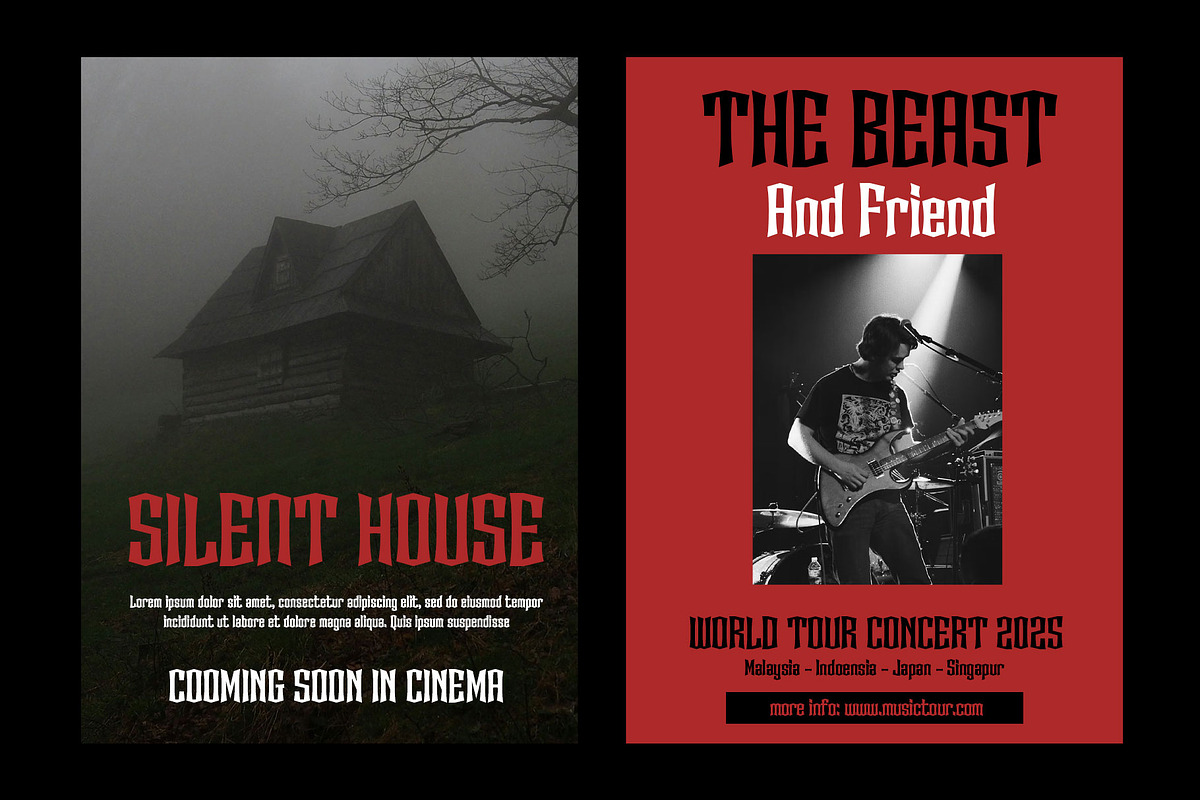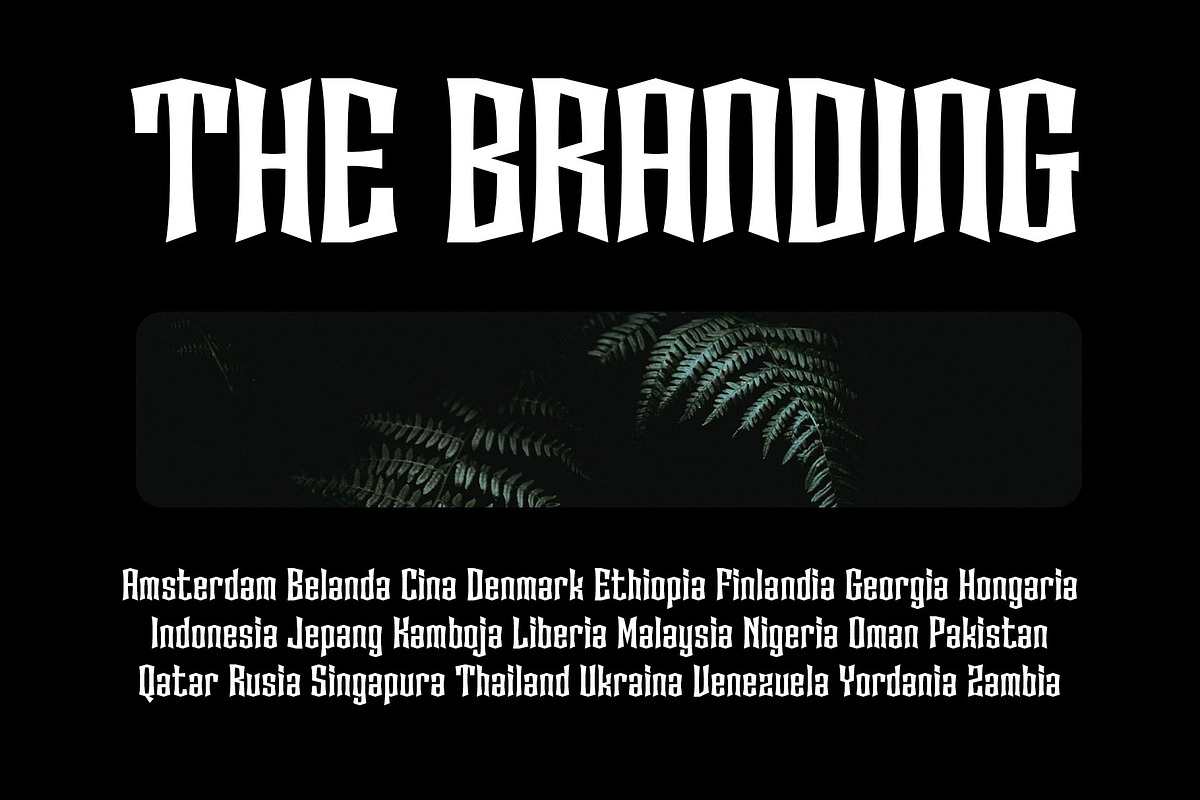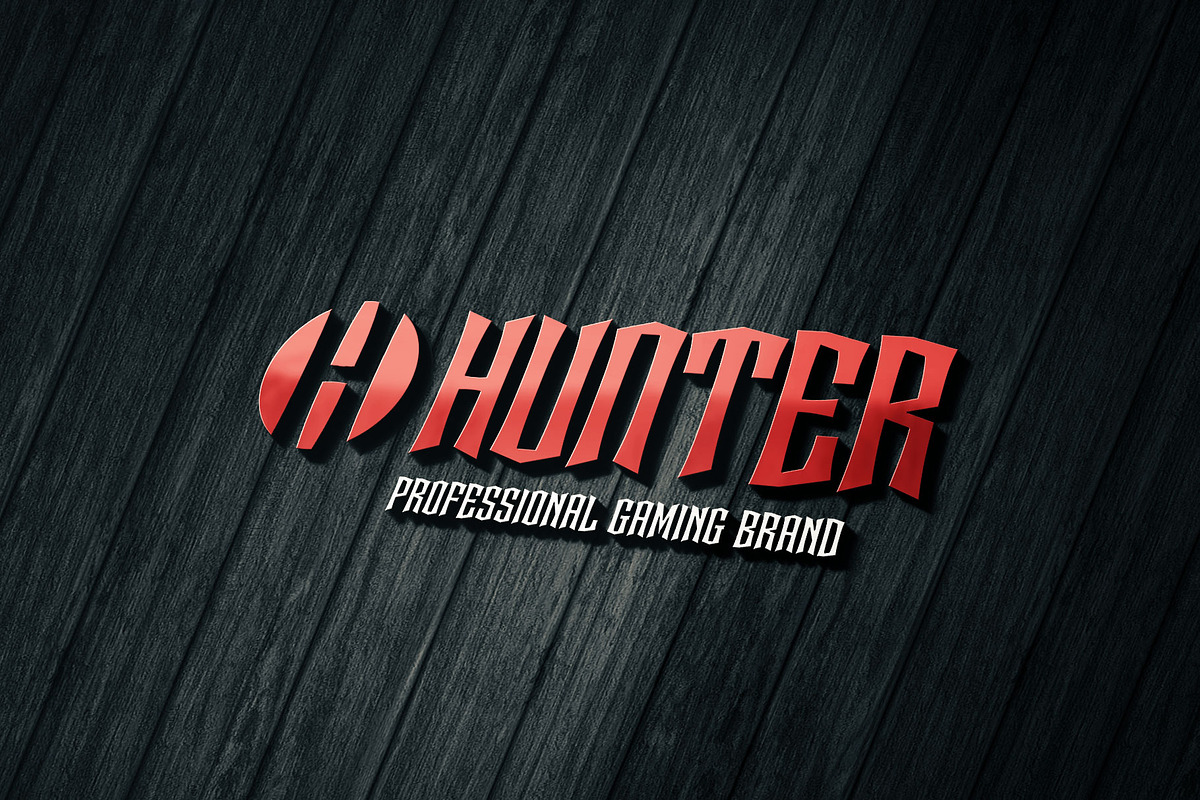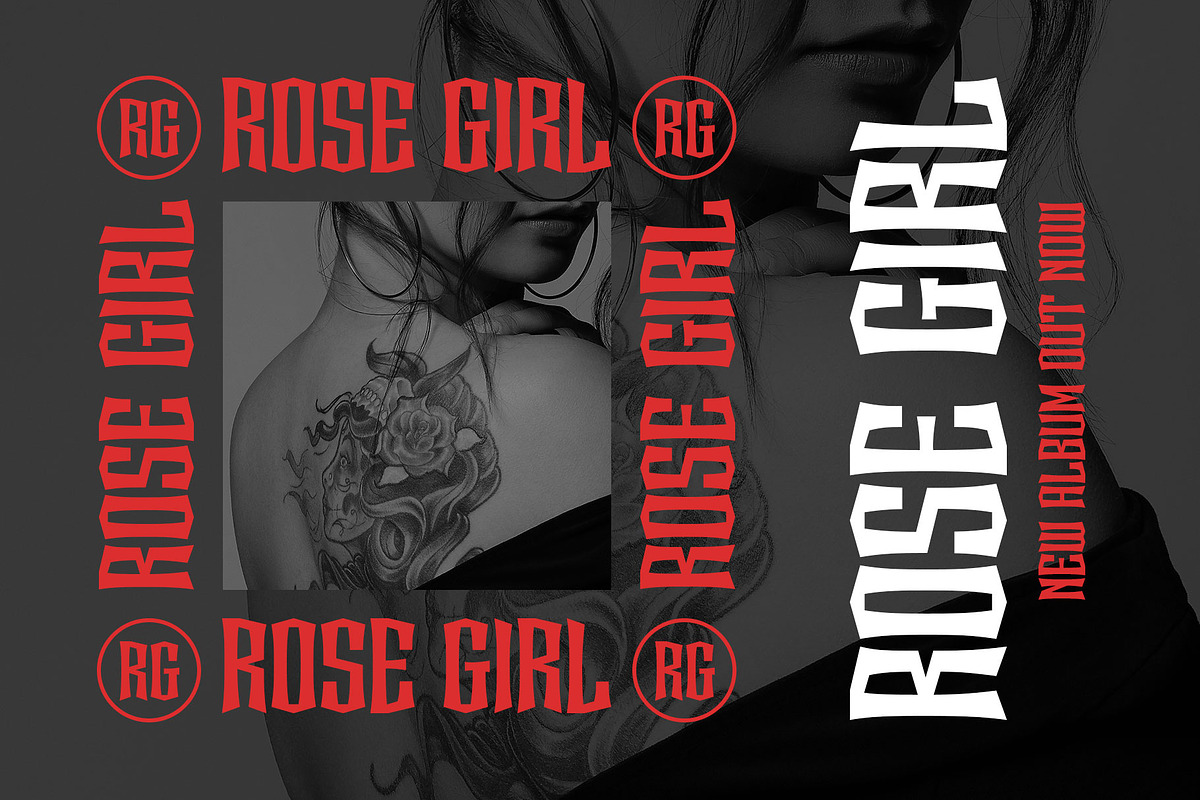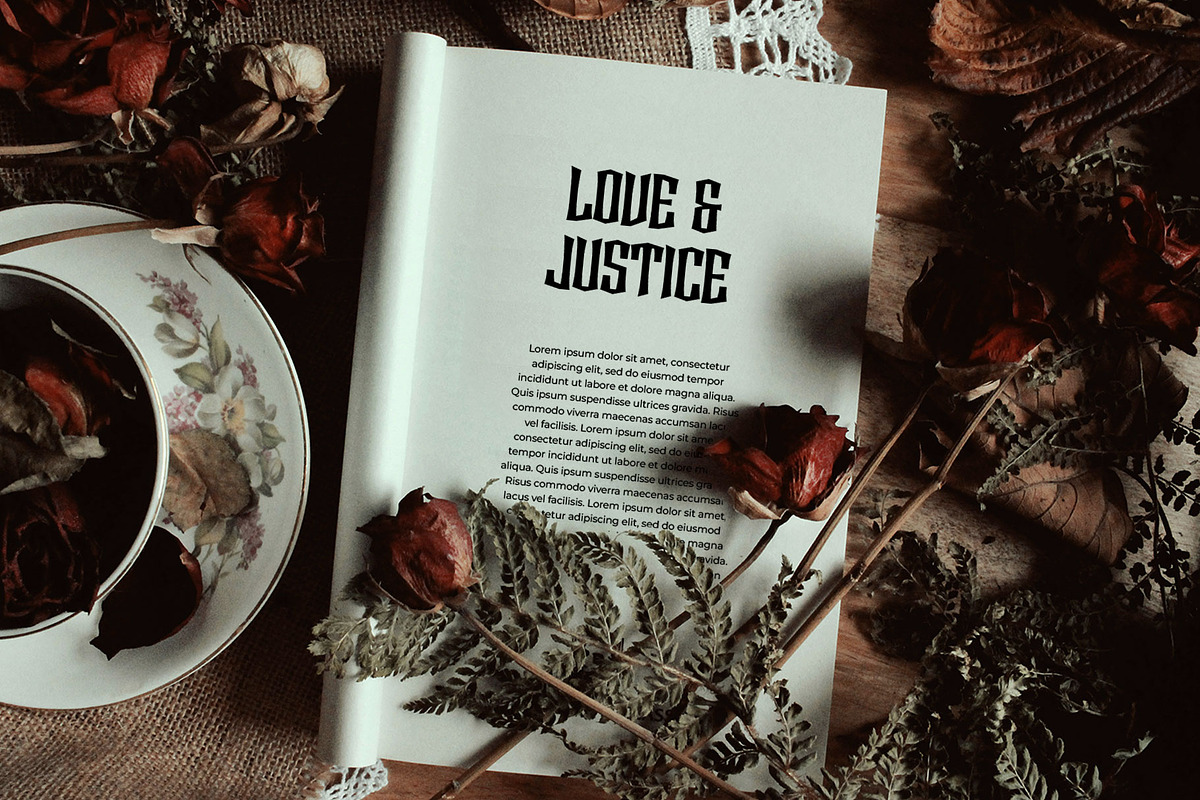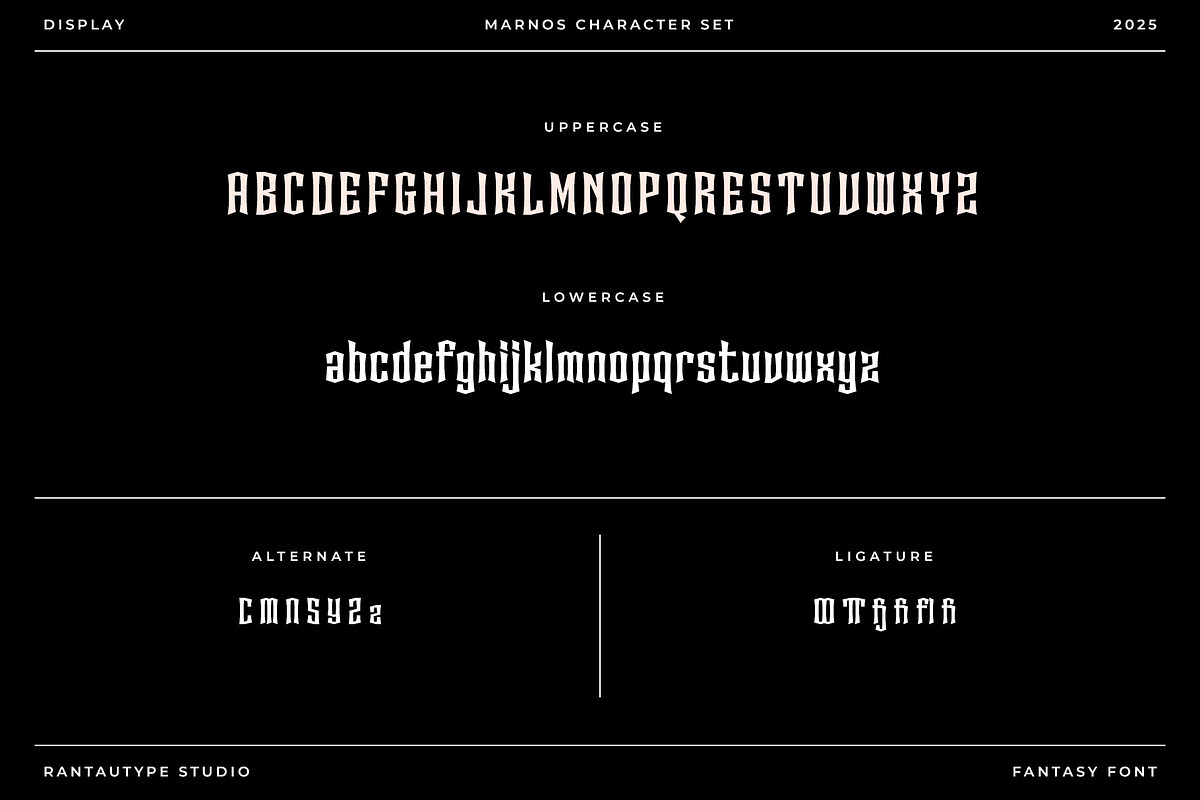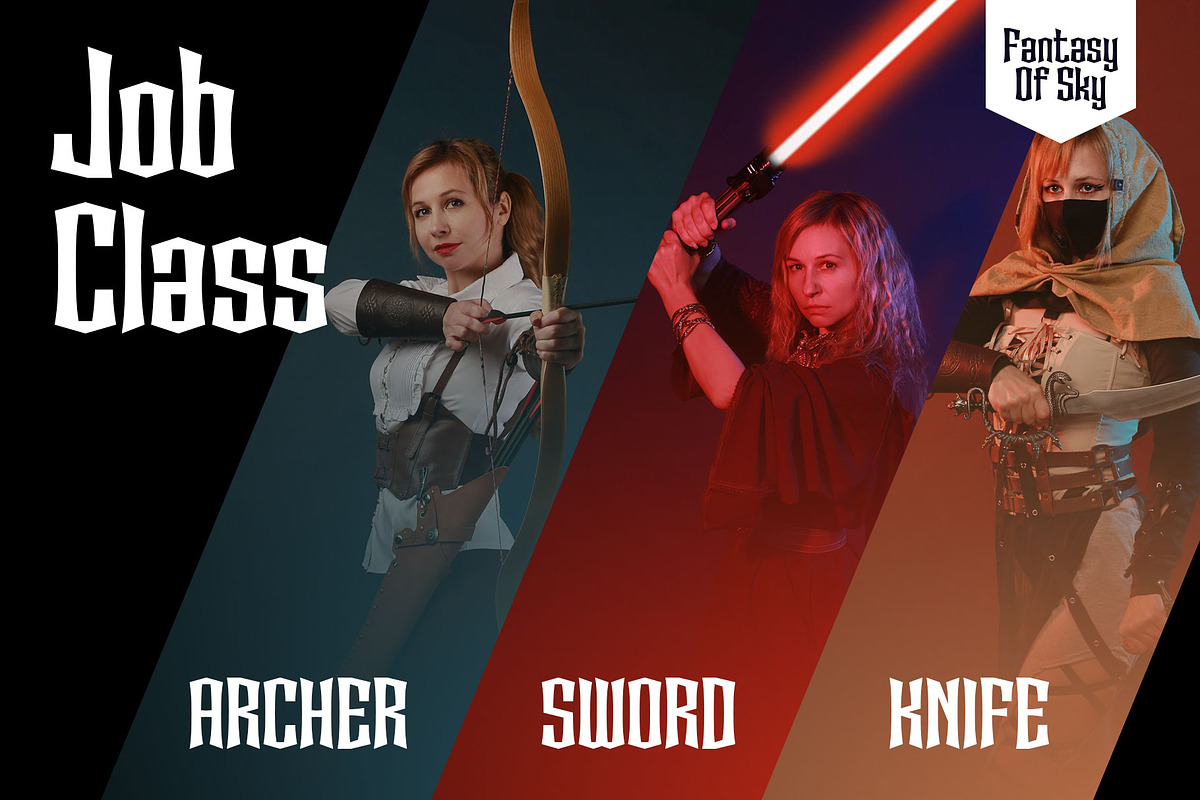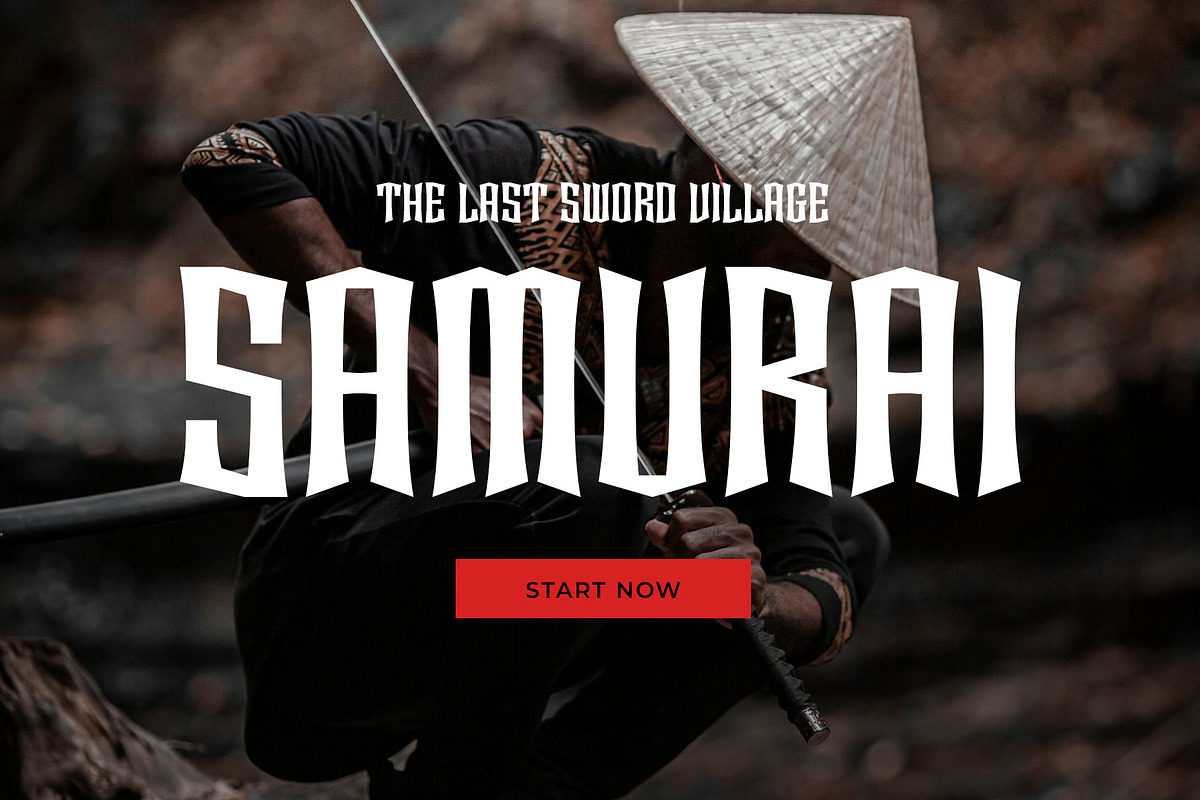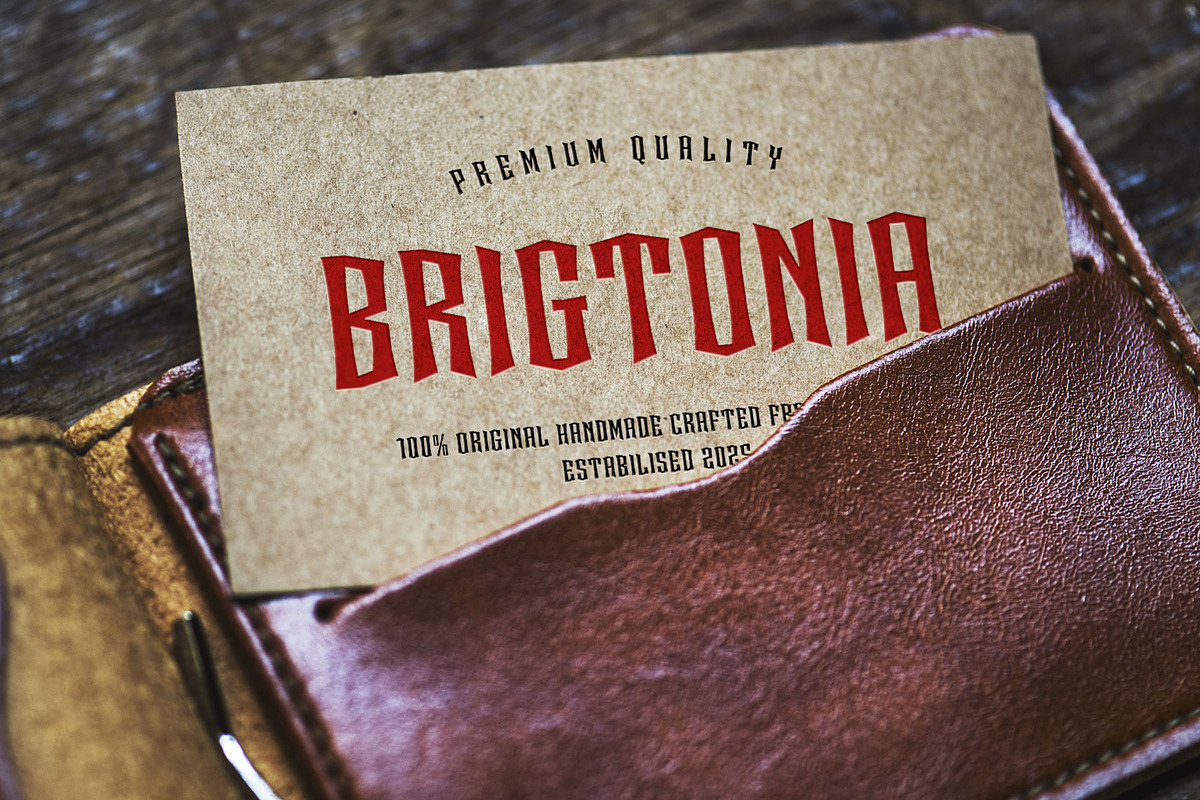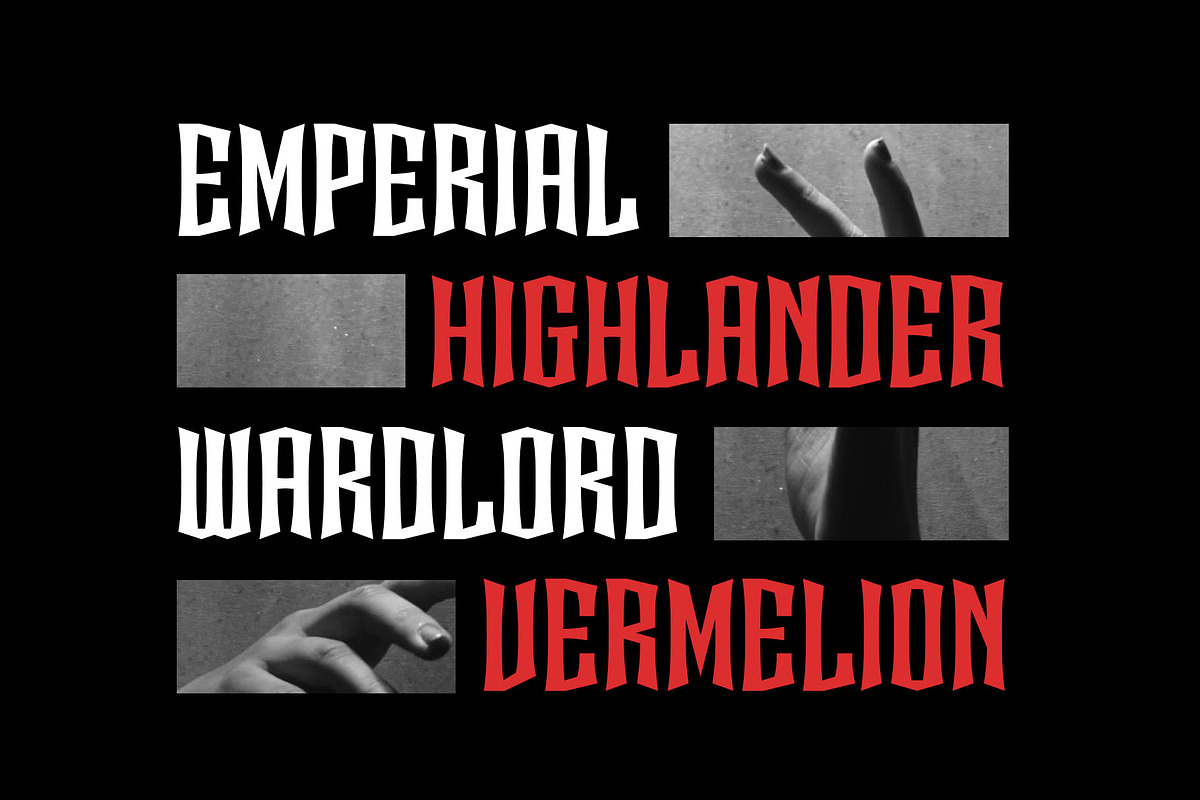
Marnos Fantasy Display Font
Marnos is display font with gothic style. Marnos bring contrast shape to create fantasy look. Marnos is a perfectly choice for any creative endeavor, chic, lifestyle design such as logotype, advertisements, watermark on photography, stationery, branding project, display and magazine, invitation, corporate brand, product design, label, business project and many other project with gothic or fantasy touch.
- Alternate and ligature